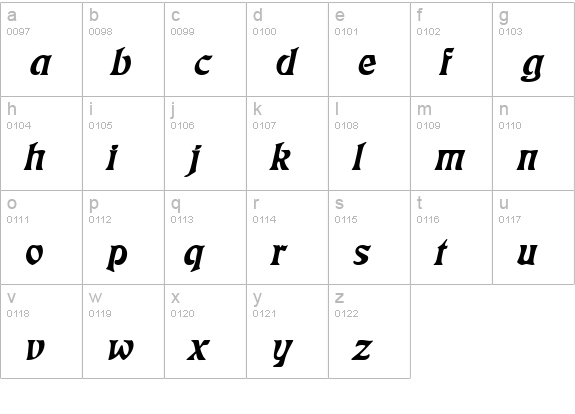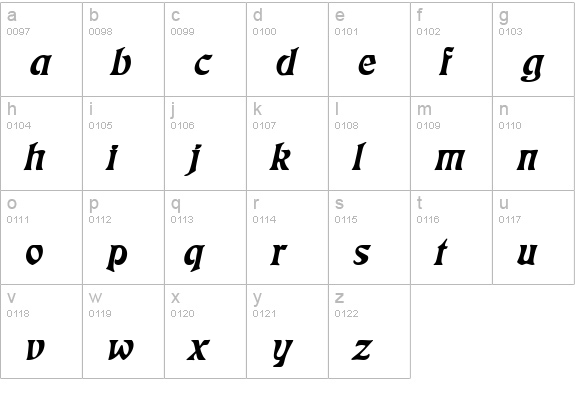
Freedom Wide Italic Font Details
Freedom Wide Italic is a distinctive, extended-width, italic variant in the Freedom typeface family \xE2\x80\x94 well suited to design and typography projects.
Introducing Freedom Wide Italic font, a sleek and modern typeface that exudes a sense of freedom and creativity. The italicized style adds a touch of elegance and sophistication to any design project. With its wide letterforms and unique character shapes, this font is perfect for making a bold statement. What sets Freedom Wide Italic font apart is its sense of liberation and openness, making it ideal for projects that require a sense of movement and dynamism. Whether you're designing a poster, logo, or website, this font will help your message stand out and grab attention. Best of all, Freedom Wide Italic font is freely available to download at FontsMarket.com. So go ahead and unleash your creativity with this versatile and eye-catching typeface.